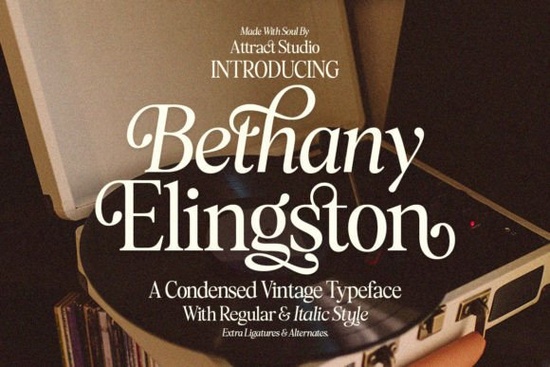
If you're looking for a serif font that feels both classic and quietly distinctive something with subtle contrast, gentle rhythm, and just enough personality to stand out without shouting then the Bethany Elingston Font is worth your attention. It’s not overly ornate or rigidly traditional. Instead, it draws from old-style serifs (think warm, humanist proportions) and condensed serifs (for tighter spacing and visual efficiency), making it especially useful when space is limited but character matters like on product labels, greeting cards, or social media graphics.
What kind of projects does Bethany Elingston work well for?
This font shines in contexts where readability meets quiet elegance. It’s especially popular among small business owners designing packaging for artisanal goods, crafters making printable wall art or wedding stationery, and print-on-demand sellers who want typography that feels intentional not generic. Because it’s a serif with clear stroke contrast and slightly condensed letterforms, it holds up well at smaller sizes (like 10–12 pt on a tag or label) while still feeling rich at larger sizes (think 36+ pt for a book cover or poster headline).
It pairs naturally with clean sans-serifs for body text think Open Sans or Montserrat but also works beautifully on its own in short-form layouts: a single-line quote, a shop name on a storefront banner, or even stitched embroidery designs where letterform clarity matters.
How does it compare to other serif fonts on Creative Fabrica?
If you’ve already explored serif options like Et Emilia Grace, which leans more romantic and script-adjacent, or Wildflower Apothecary, with its vintage apothecary charm, Bethany Elingston sits in a quieter, more versatile middle ground. It doesn’t lean heavily into nostalgia or whimsy it’s grounded, legible, and adaptable.
For designers who appreciate structure but dislike stiffness, it’s a step away from high-contrast modern serifs like Magic Flash, and closer in spirit to timeless workhorses like Garamond or Caslon but with its own gentle idiosyncrasies. You’ll notice slight variations in stroke weight, open counters, and soft terminals details that add warmth without sacrificing function.
And if you’re building a collection of retro-inspired typefaces, this curated set of retro fonts includes Bethany Elingston alongside others that share its restrained, thoughtful approach ideal for cohesive branding across multiple products or seasons.
Where do people actually use it?
Real-world examples help clarify what this font does best:
- Small-batch product labels especially for candles, teas, or skincare lines where tone matters as much as ingredients
- Digital planners and printable journals headers and section titles benefit from its clarity and calm presence
- Wedding invitations and menus it reads as refined but not formal, fitting for backyard ceremonies or modern minimalist venues
- Social media posts for creative businesses overlaying short quotes or announcements over photos without competing for attention
One user shared how they used Bethany Elingston across three seasonal collections for their stationery shop changing only color and layout, not the font itself and customers consistently commented on how “cohesive” and “intentional” the branding felt.
It’s also designed with practical spacing in mind: generous side bearings prevent cramped letters in all-caps settings, and the lowercase ‘a’, ‘e’, and ‘g’ are open and legible even at smaller sizes on physical prints.
For reference, you can see how Bethany Elingston Font appears in real project previews on Creative Fabrica, including mockups of mugs, tote bags, and digital templates.
- You need a serif font that balances tradition and usability not too decorative, not too plain
- Your projects include printed items (labels, cards, tags) or digital overlays where legibility at varied sizes matters
- You prefer fonts with subtle personality like a slight tilt in the ‘v’ or soft curve in the ‘s’ rather than dramatic flair
- You’re already using or considering complementary serifs like Et Emilia Grace or Wildflower Apothecary, and want something that bridges their styles
If those match your needs, Bethany Elingston Font is a straightforward, reliable addition not a flashy upgrade, but a thoughtful one.